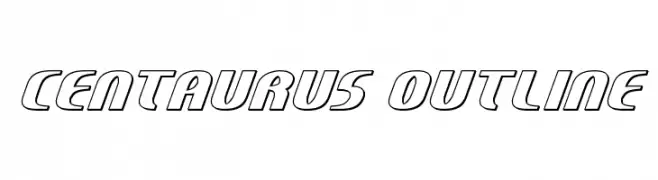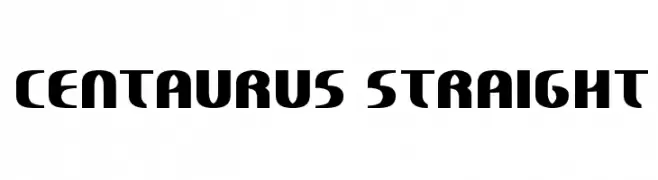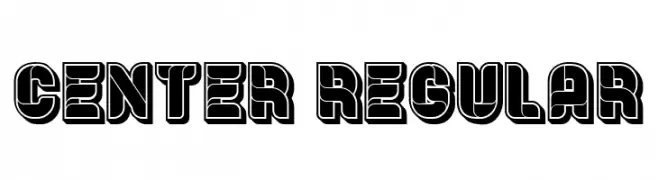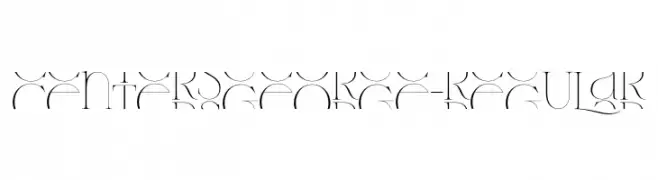
A bold, playful font with a hand-drawn, dynamic style.
A bold, geometric font with sharp angles and a modern aesthetic.
A bold, three-dimensional font with sharp, angular lines and a shadow effect.
A dynamic, slanted font with bold, angular edges and a modern aesthetic.
A bold, adventurous font with integrated climber silhouettes.
A modern, rounded font with a futuristic and geometric design.
A modern, geometric sans-serif font with a sleek and condensed style.
A bold, impactful font with strong, consistent characters.
A modern and elegant sans-serif font with clean lines and balanced characters.